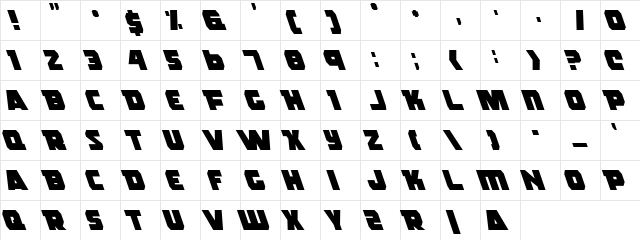
Rogue Hero Left Left
Design Context for Rogue Hero Left Typeface
Rogue Hero Left is a composed and adaptable typeface that performs quietly and consistently across a wide range of design contexts.